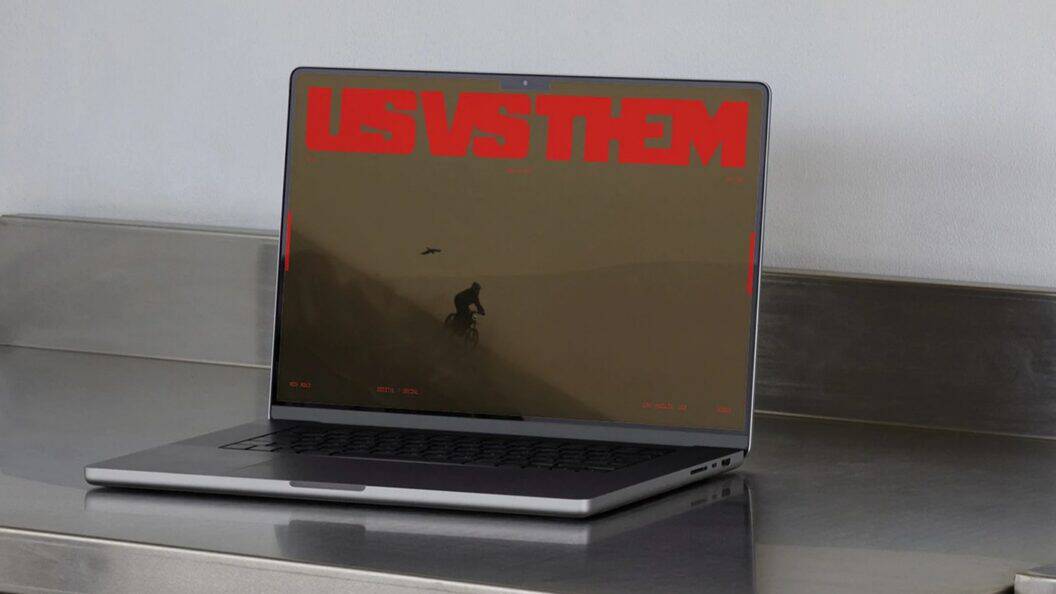
Goga Mono monospaced specimen, narrow typeface showcase for designers, developers and branding
Goga Mono, a narrow monospaced family in 18 weights, built on a 630-unit grid for crisp coding, editorial layouts and bold headlines
Goga Mono Precision
As an expert branding curator, I recommend Goga Mono for its rare balance of utility and personality. Its monospaced construction sits on a precise 630 unit grid, offering strict visual rhythm. Spacing is consistent, scaling creates compositional tension, and every glyph feels intentionally tuned. This makes the face reliable for both dense code and expressive headlines. It reads cleanly at any scale, truly everywhere.
The family spans eighteen weights, from hairline to black, with harmonized italics for nuance. Heavy styles deliver commanding headlines, while light styles preserve clarity in body copy. Specimens show posters, editorial spreads, and interface mockups, illustrating flexible branding applications. The blend of grotesque and geometric traits provides a unique tonal range for modern identities. Designers can download a free trial to test implementations rapidly.
As a curator, I see Goga Mono as a pragmatic creative tool for studios and brands. Its structural white space guides the eye, while details reward close inspection and typographic care. Use it for data rich interfaces, editorial rhythm, or bold poster statements, depending on project needs. Visit the full showcase to see practical layouts and download options for your next brief. Read it.